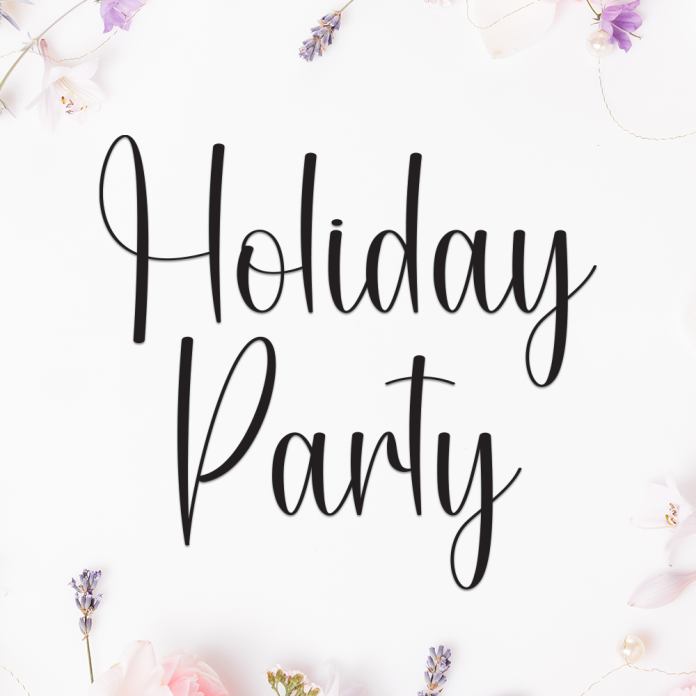
Holiday Party is a cheerful and playful handwriting font that captures the joy and excitement of the holiday season. Its fun, bouncy strokes and handwritten charm make it perfect for festive projects that need a personal and celebratory touch.
Whether you're creating Christmas cards, holiday invitations, New Year greetings, or seasonal social media content, Holiday Party brings warmth, friendliness, and sparkle to your designs.
Playful and joyful handwritten style
Cheerful curves and smooth lines
Ideal for holiday cards, party themes, crafts, and seasonal branding
Celebrate the season with Holiday Party, the handwriting font that turns every word into a festive cheer!